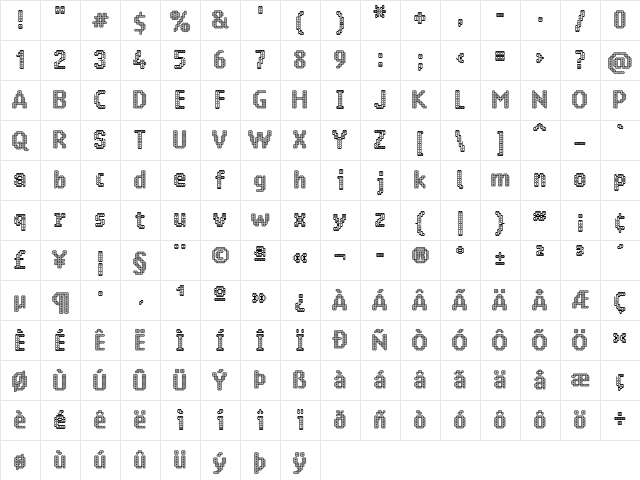
Ring Matrix Two Regular
Foundry: Peter Wiegel
Designer: Peter Wiegel
Design Context for Ring Matrix Two
Ring Matrix Two is a composed and adaptable typeface that performs quietly and consistently across a wide range of design contexts.